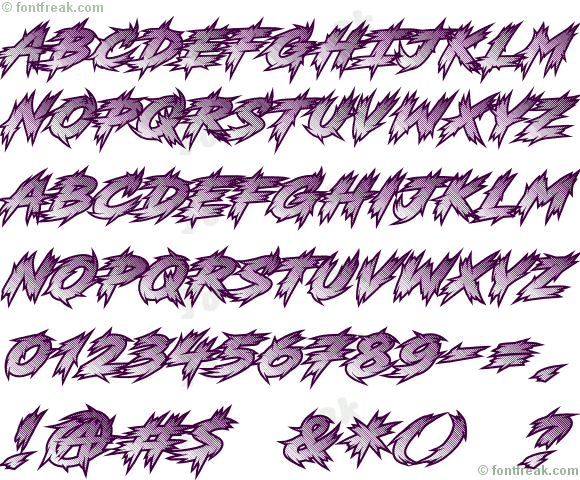
Sectar
SectarSP
Sectar, designed by Youssef Habchi, is a striking display font that falls into the decorative category. Its unique flair makes it an eye-catching choice for various design projects. The font features bold, angular strokes that create a dynamic visual impact, while the irregular edges add a sense of energy and movement. The contrast between thick and thin sections gives it a modern touch, making Sectar stand out among conventional typefaces. Its slightly condensed spacing enhances readability while maintaining a playful aesthetic, making it versatile for different contexts.
Sectar is ideal for a range of applications. It works beautifully on movie posters, where it can convey action and excitement. Additionally, its bold character makes it an excellent choice for branding and logo design, effectively capturing attention. For event promotions, such as music festivals or art exhibitions, Sectar's lively style adds a sense of vibrancy. It can also elevate restaurant menus, providing a contemporary edge that complements modern dining experiences. Whether you're a graphic designer, small business owner, or content creator, Sectar offers a unique solution for projects that require a memorable typeface.